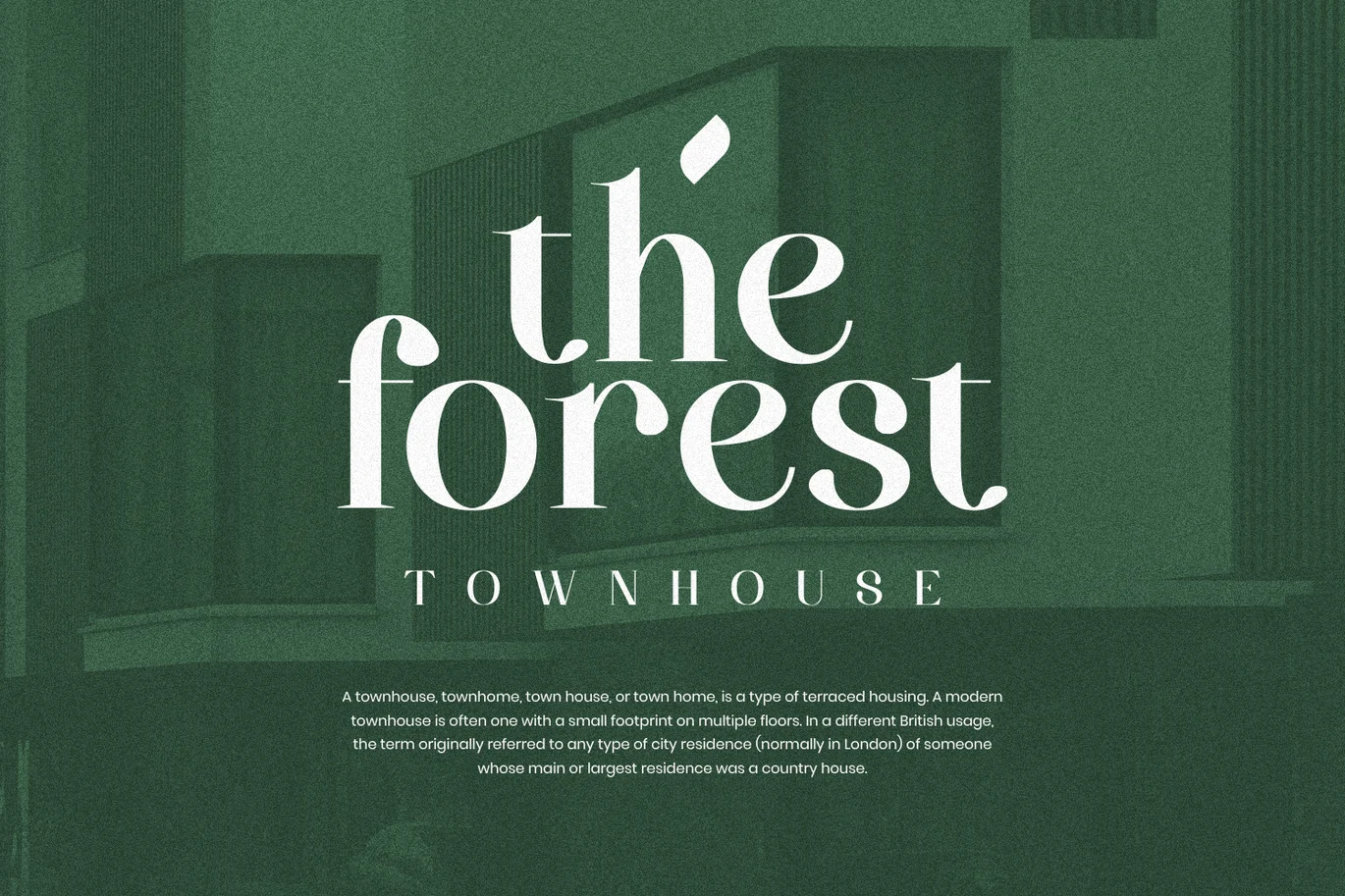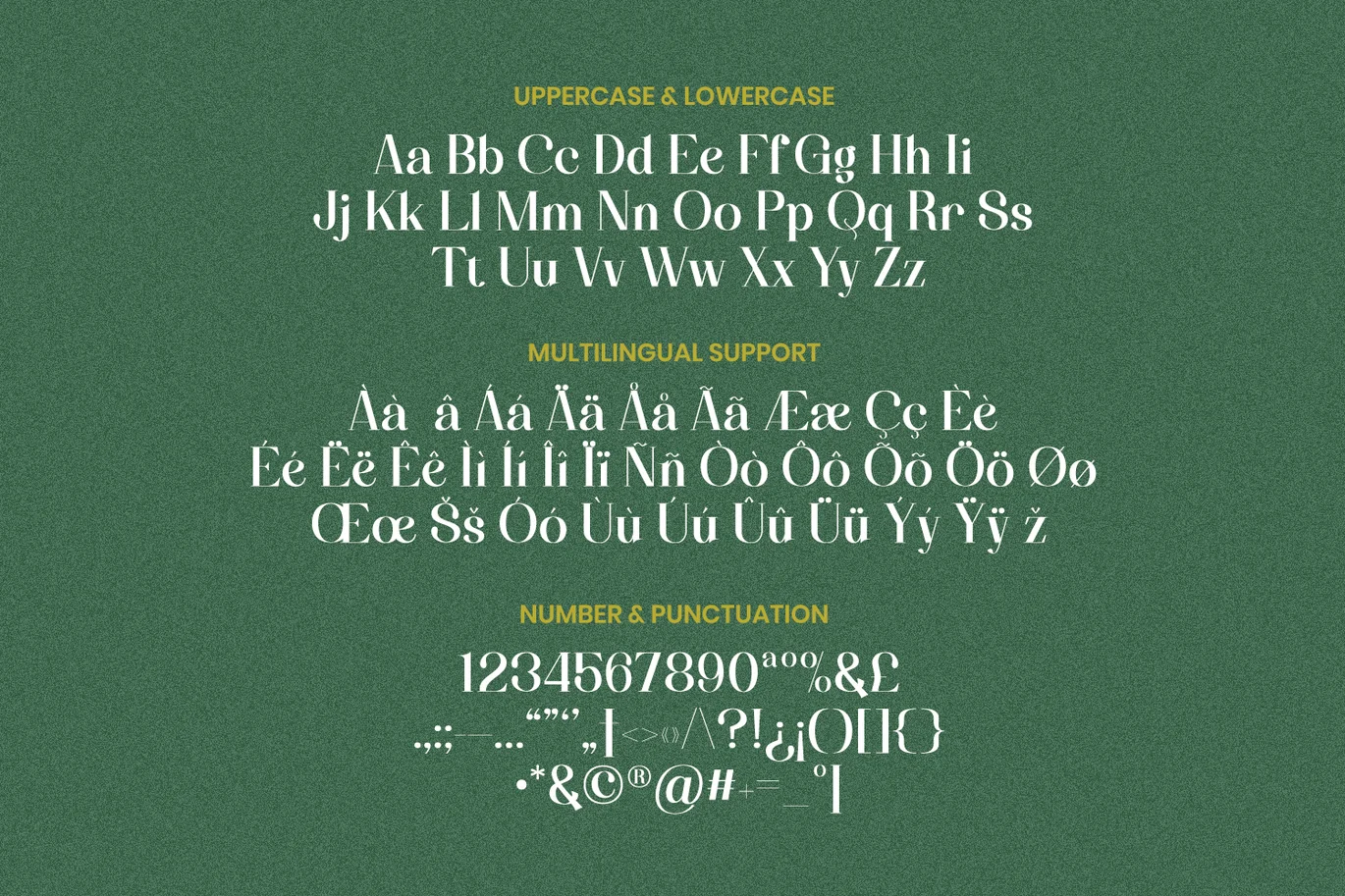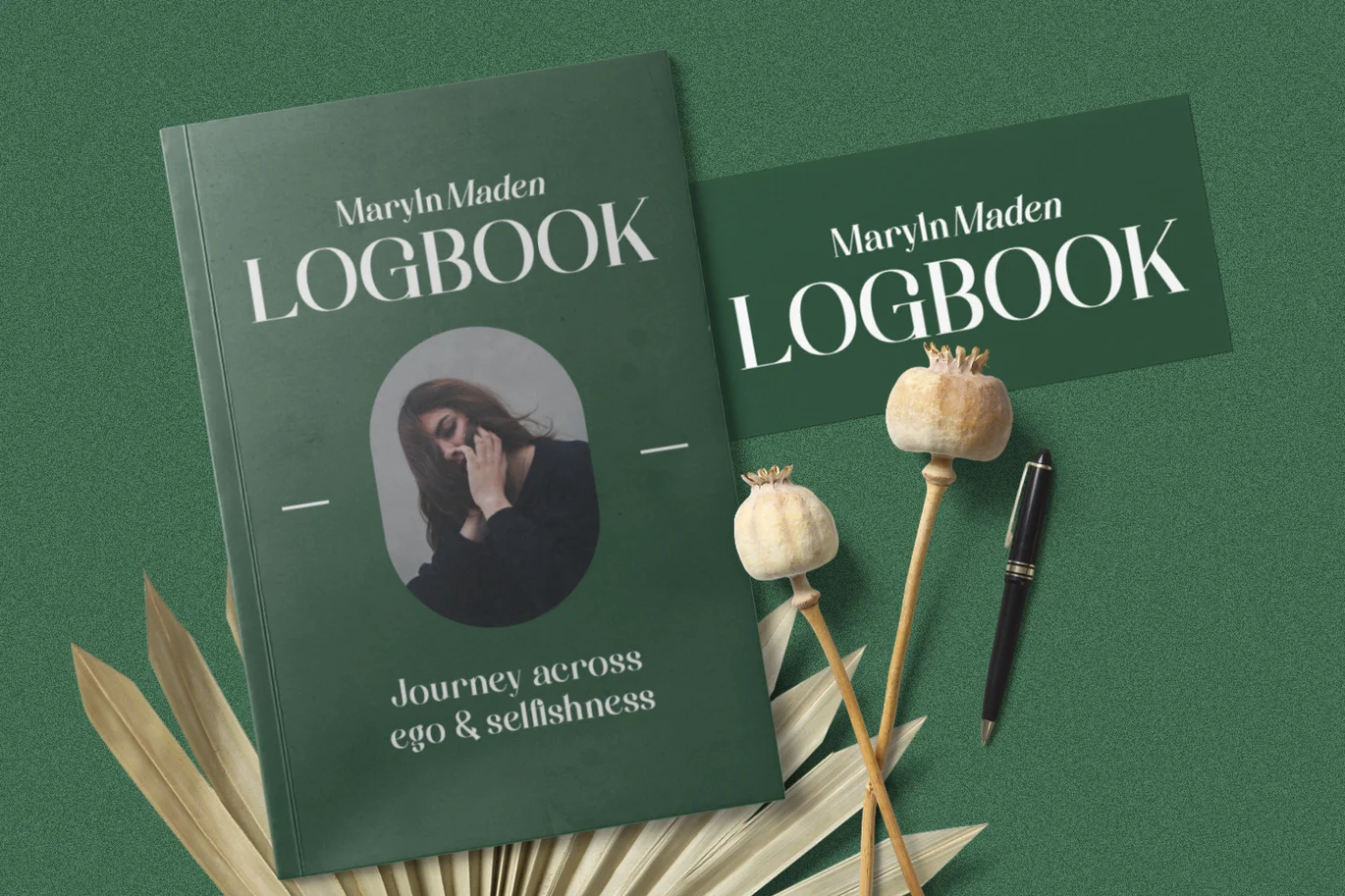
Darrylene – Elegant Serif Font
Darrylene is a elegant serif font that has smooth curves and a visual style a can embodies charm and elegance in every lettering, making your work look stunning and attractive.
Suitable works in both uppercase and lowercase sizes, suitable for a wide variety of projects such as a display font for headings, logo fonts, invitations, branding, book covers, magazine layouts, wedding, product packaging, product mockup, signature, posters, labels, editorials, art deco, and any type of advertising purpose.
Features
- Uppercase and Lowercase
- Punctuation, Number and Symbol
- Multilingual Support ÀÁÂÃÄÅÆÇÈÉÊËÌÍÎÏÐÑÒÓÔÕÖØÙÚÛÜÝ